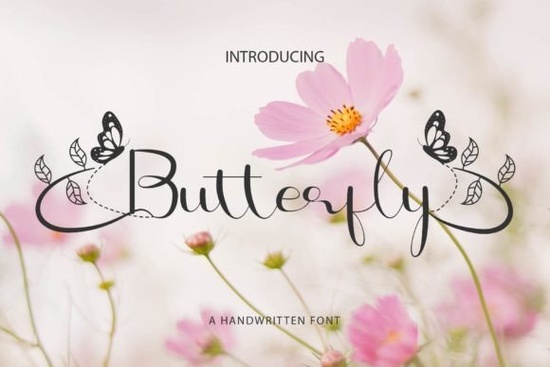
Finding the perfect script for a special project usually means balancing elegance with readability. When you are designing wedding invitations or personalized greeting cards, you want a typeface that feels authentic but doesn't sacrifice clarity. The Butterfly Font is a decorative handwritten style that fits this exact need, offering a stylish look without becoming too messy to read. It gives your designs a personal, handcrafted touch that works beautifully for both digital and print projects.
What makes a handwritten font work for wedding and event stationery?
Wedding invitations and thank you cards require a specific mood. You want your guests to feel the warmth and care put into the event. A highly decorative script can set that tone instantly. However, if the letters are too tangled, people might struggle to read the names or dates.
This typeface keeps the loops and swashes elegant while maintaining clear letterforms. It is especially useful for small business owners creating bespoke stationery or crafters making custom acrylic welcome signs. The flowing style mimics real calligraphy, saving you hours of hand-lettering while keeping a consistent baseline.
How do you access alternate characters and glyphs?
One of the most frustrating things for beginners in font design is buying a beautiful script but not knowing how to use the extra swashes and ligatures. This typeface is PUA encoded, which solves that problem entirely.
What does PUA encoded mean? It simply means all the extra glyphs, alternates, and special characters are mapped to standard keyboard keys. You do not need expensive design software like Adobe Illustrator to access them.
This feature is a huge time-saver for crafters cutting vinyl decals, making custom wood signs, or designing intricate paper crafts.
Which projects benefit most from decorative script styles?
While this typeface shines on wedding suites, its versatility stretches across many different creative niches. If you are looking for a slightly different vibe for your next project, you might also explore a more playful script style to see how different moods affect your layout.
Here are a few ways to use elegant handwritten styles effectively:
- Print-on-demand apparel: Use it for short, impactful quotes on tote bags, boutique t-shirts, or baby onesies.
- Brand identity: Pair it with a clean sans-serif for a boho, beauty, or luxury brand logo.
- Social media graphics: Add a personal touch to Instagram quote templates, Pinterest pins, or YouTube thumbnails.
- Product packaging: Create custom labels for small-batch candles, soaps, or artisan food items.
If your design requires a more structured, formal look for initials, combining your main script with an elegant monogram style can create a beautiful contrast on business cards or wax seals. And if you want to see more options in this specific collection, browsing other decorative handwritten typefaces can help you compare weights and slant angles.
What should you check before finalizing your font choice?
Before you commit to a typeface for a large project or a client order, it helps to run through a quick quality check. This ensures your final product looks professional and prints cleanly.
- Test the kerning: Type out a few common words and names to ensure the spacing between letters looks natural and doesn't require too much manual adjusting.
- Check the licensing: Always verify whether your license covers commercial use, especially if you are selling physical products, digital templates, or print-on-demand items.
- Print a test page: Screen resolution can be deceiving. Print your design at actual size to make sure the thin strokes don't disappear and the thick strokes don't bleed together on paper.
- Pair it wisely: Keep your secondary fonts very simple. A heavy, decorative script needs a lightweight, minimal sans-serif or serif to balance the overall design and keep the text readable.
Take a few minutes to test your chosen typeface in the actual environment where it will be used. Whether you are cutting vinyl, printing on textured cardstock, or displaying it on a mobile screen, seeing it in context will help you make the best design decisions.